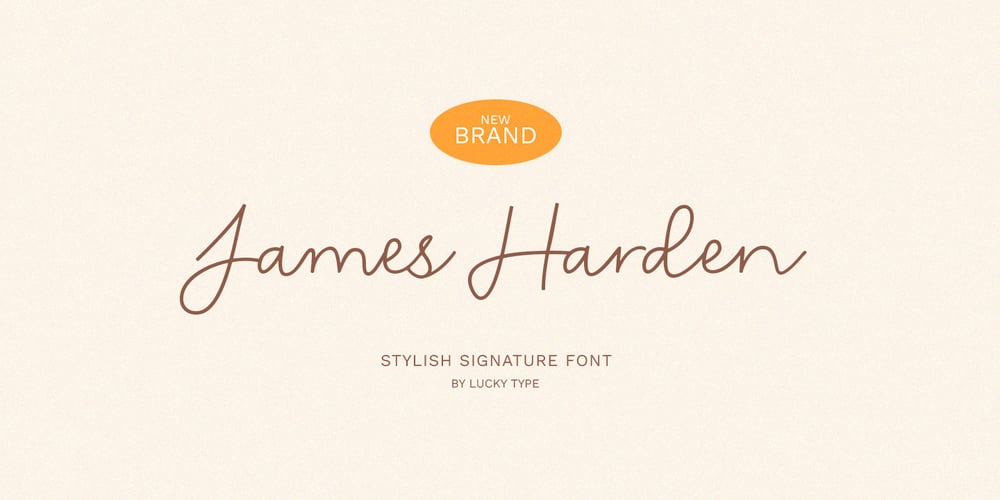
James Harden Font Family was designed by Muhammad Fajar and published by Lucky Type. James Harden contains 1 styles and family package options. hello designers, meet my newest font James Harden Script. This is a classic thin font in italic style. This font comes with modern ligatures that can make your work look elegant, sweet, and perfect. With this style, this font will be suitable for logos, branding projects, product packaging, mugs, quotes, posters, shopping bags, logos, t-shirts, book covers, business cards, invitation cards, greeting cards and all your other projects. The James Harden Script font includes multiple language support. You can use this font for your work very easily because it contains many features. Contains a full set of uppercase and lowercase letters, punctuation, numbers, and multilingual support.